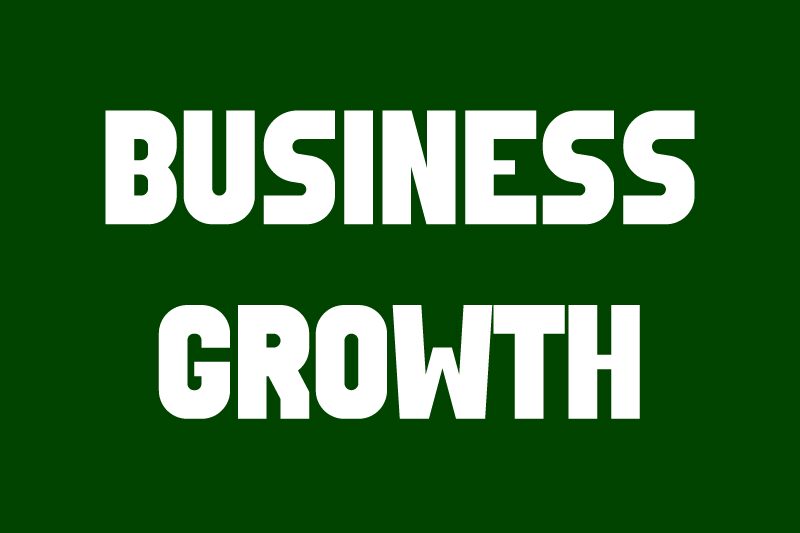
Business Growth Bold
The Business Growth Bold font, part of the versatile Business Growth font family designed by Design Vector10, is a compelling and impactful choice for various projects. With its sans serif style and extra-bold weight, this font exudes confidence and professionalism. The condensed width adds a sleek and modern touch to any design. Perfect for corporate presentations, financial reports, or advertising materials seeking to make a bold statement. Let your business soar with the Business Growth Bold font and captivate your audience with its powerful aesthetics.